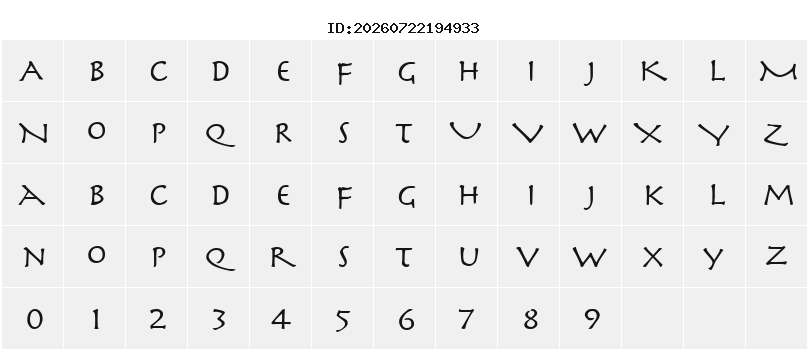
• Font Name: Mythology Wide
Mythology Wide.ttf is a modern, elegant sans-serif font designed for ultimate readability and visual harmony. Perfect for branding, headlines, web design, and print materials.